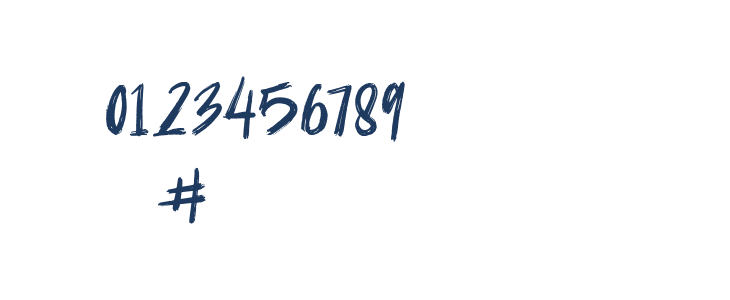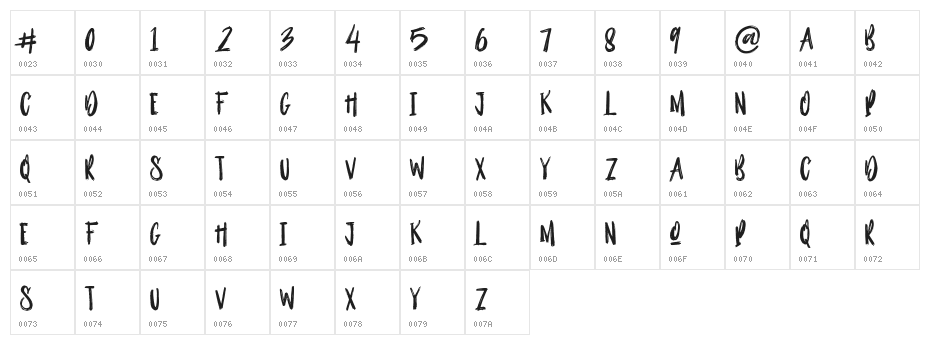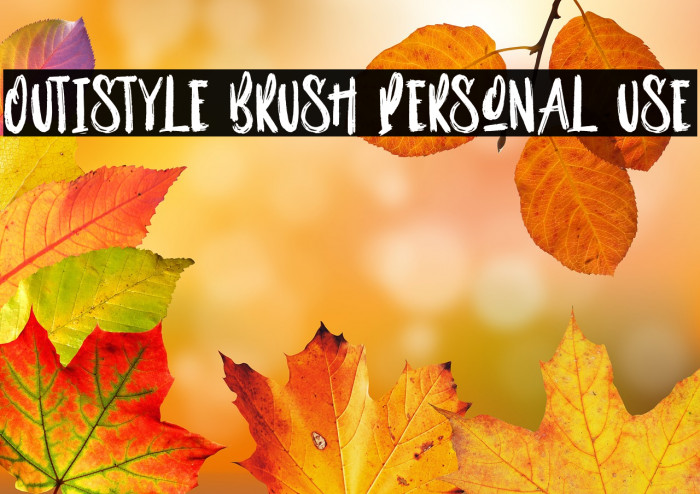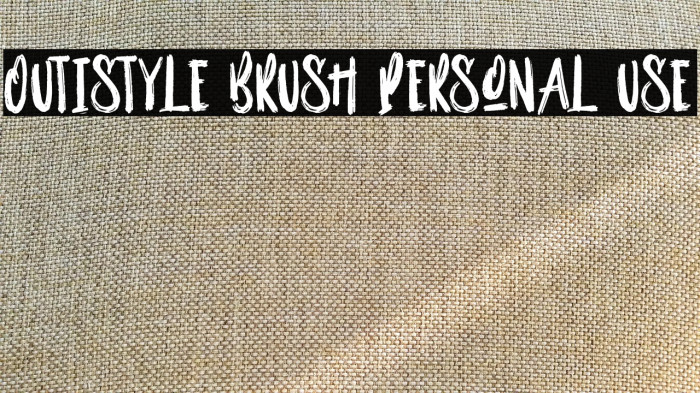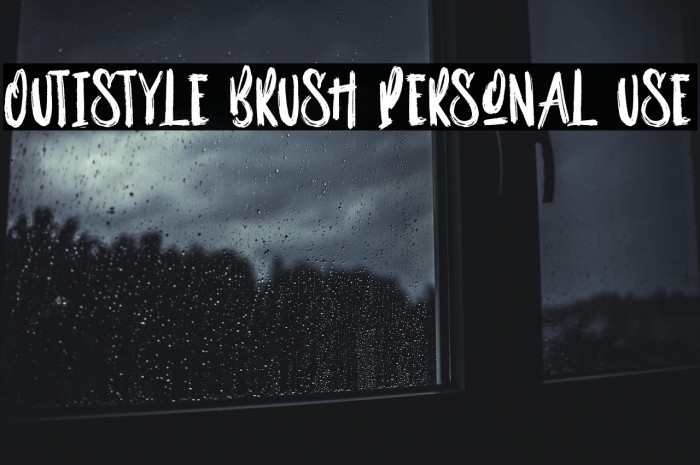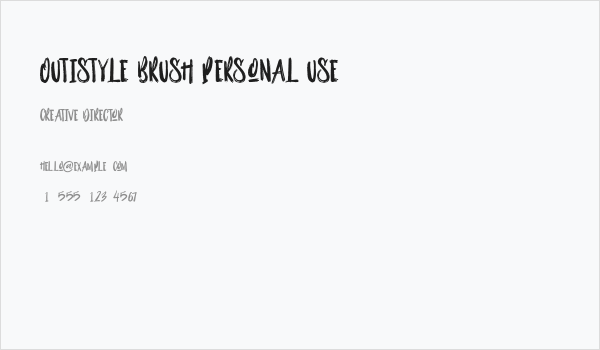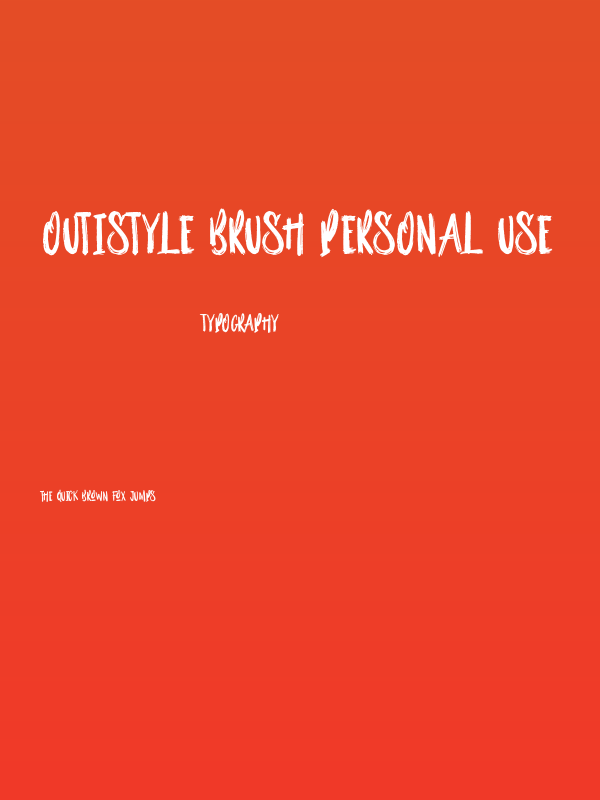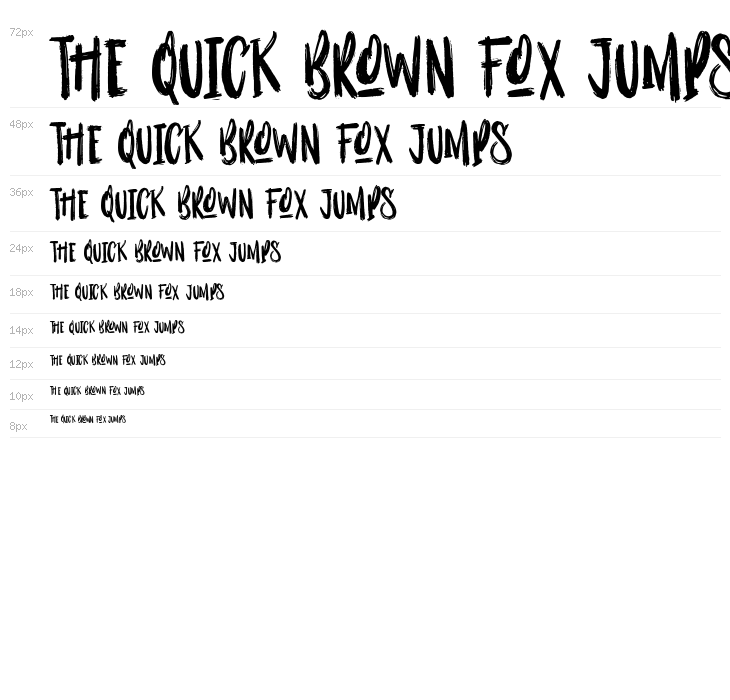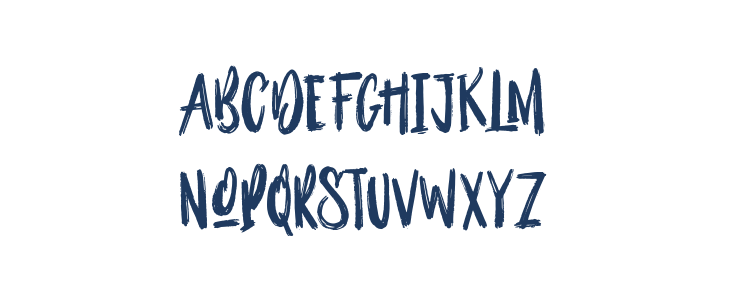
Outistyle Brush Personal Use Font
Outistyle Brush Personal Use Description
This font features a bold, expressive brush style that exudes energy and dynamism. Each character is crafted with a hand-painted appearance, showcasing irregular edges and varying stroke thicknesses that mimic the natural flow of brushstrokes. The uppercase and lowercase letters maintain a consistent style, with a slightly condensed form that enhances its impactful presence. Numbers and special characters are equally bold, ensuring a cohesive look across all text elements. The font's artistic flair makes it ideal for projects that require a personal touch or a creative, informal vibe.